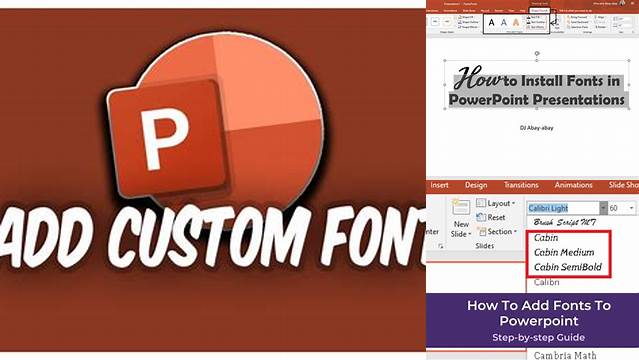
Use Custom Fonts In PowerPoint Online: A Simple Guide
Hey guys! Ever felt like your PowerPoint presentations are missing that special something? You know, that unique touch that makes your slides stand out from the crowd? Well, let me tell you, custom fonts might just be the secret ingredient you've been searching for. In this article, we're diving deep into the world of custom fonts in PowerPoint Online. We'll explore why they're so awesome, the limitations you might encounter, and, most importantly, a super easy workaround to get those gorgeous, personalized fonts shining in your presentations. So, buckle up, font enthusiasts! We're about to level up your PowerPoint game.
Why Use Custom Fonts in PowerPoint Online?
Let's kick things off by exploring why using custom fonts in PowerPoint Online is a total game-changer. First off, think about branding. If you're creating presentations for your business, using your brand's specific fonts is crucial for maintaining a consistent and professional look. It's all about reinforcing your brand identity, making sure your message is delivered with the right visual tone. Imagine your logo using a sleek, modern font, but your presentation slides are rocking Times New Roman – not exactly a match made in heaven, right? Custom fonts ensure your presentation aligns perfectly with your brand's aesthetic, creating a cohesive and memorable experience for your audience.
But it's not just about branding, guys. Sometimes, you just want to add a little flair to your slides. The default fonts in PowerPoint are, well, a bit…basic. They get the job done, sure, but they don't exactly scream personality. Custom fonts allow you to inject your own style and creativity into your presentations. Whether you're going for elegant and sophisticated, bold and modern, or playful and quirky, there's a custom font out there that perfectly captures the vibe you're after. Using the right font can instantly elevate your presentation from meh to magnificent!
Think about the message you're trying to convey, too. Fonts have a subtle power to influence how your audience perceives your content. A serious presentation might benefit from a clean, professional sans-serif font, while a more creative or informal presentation could rock a handwritten-style font. The font you choose can actually enhance the impact of your words, making your presentation more engaging and persuasive. It's all about finding the perfect visual voice for your message.
Plus, let's be honest, using custom fonts just makes your presentations look more polished and professional. It shows that you've put in the extra effort to make your slides visually appealing, which can really impress your audience. It's that attention to detail that can set you apart and make your presentation truly memorable. So, if you're looking to make a lasting impression, custom fonts are definitely the way to go!
The Catch: PowerPoint Online's Font Limitations
Okay, so we've established that custom fonts are the bee's knees. But here's the deal, guys: PowerPoint Online has some limitations when it comes to using them. Unlike the desktop version of PowerPoint, which lets you install fonts directly onto your computer and use them in your presentations, the online version is a bit more restricted. You can't just upload any font you want and expect it to work seamlessly.
PowerPoint Online primarily relies on a selection of web-safe fonts. These are fonts that are widely available across different operating systems and browsers, ensuring that your presentation looks consistent no matter where it's viewed. While this is great for compatibility, it does mean that your font choices are somewhat limited. You're stuck with the usual suspects like Arial, Times New Roman, Calibri, and a few others. Not exactly a huge range of options, is it?
This can be a real bummer if you have a specific font in mind for your presentation, especially if it's part of your brand's identity. Imagine spending hours crafting the perfect slides, only to realize that your signature font isn't available in PowerPoint Online. Talk about frustrating!
The reason for this limitation is simple: PowerPoint Online is designed to be accessible and consistent across a wide range of devices. By sticking to web-safe fonts, Microsoft ensures that your presentations will look the same whether they're viewed on a Windows PC, a Mac, a Chromebook, or even a smartphone. This is crucial for collaboration, as it means that everyone on your team will see the same fonts, regardless of their operating system or browser.
However, this doesn't mean that you're completely out of luck when it comes to custom fonts in PowerPoint Online. There are still ways to get your favorite fonts into your presentations, even if it requires a little bit of a workaround. And that's exactly what we're going to explore next!
The Workaround: Embedding Fonts from the Desktop Version
Alright, guys, here's the secret sauce: the workaround that lets you use custom fonts in PowerPoint Online, even with those pesky limitations. The trick involves using the desktop version of PowerPoint to embed your custom fonts into your presentation. It might sound a bit roundabout, but trust me, it's actually pretty straightforward, and the results are totally worth it.
Don't be afraid to experiment with different fonts and find the ones that best suit your style and your message. There's a whole world of beautiful and unique fonts out there just waiting to be discovered. And with the workaround we've discussed, you can unleash their power in your PowerPoint Online presentations. So go forth, font enthusiasts, and create presentations that truly stand out from the crowd! Happy presenting!